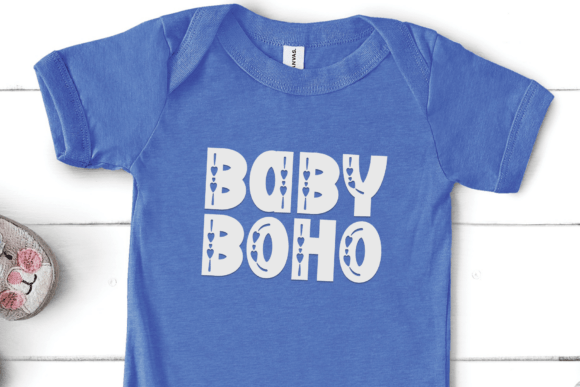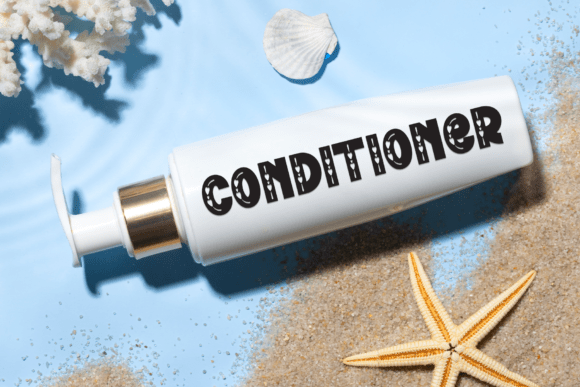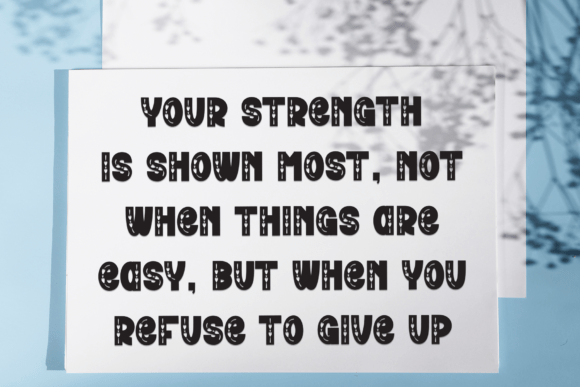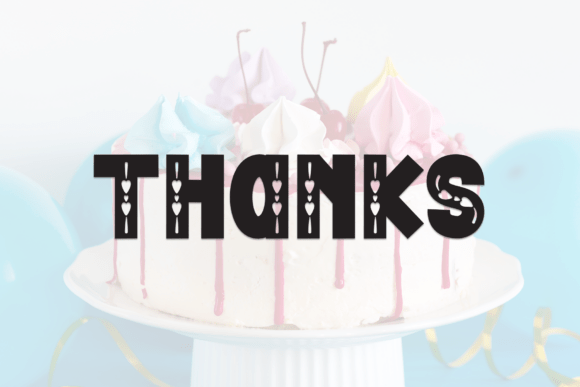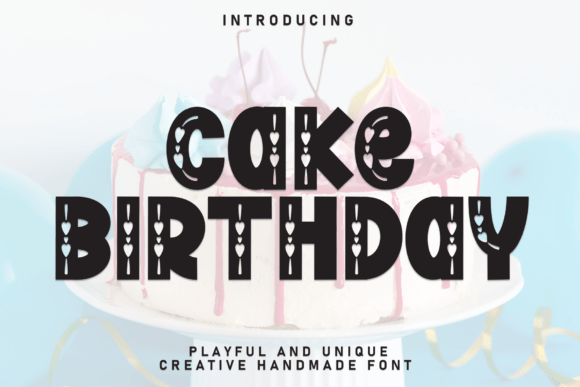
Celebrate in Style with Cake Birthday Font
Are you looking for a font that can add a touch of playfulness and whimsy to your designs? Look no further than Cake Birthday Font, a bold and unique display font that’s perfect for birthday party announcements, children’s designs, product packaging, and more. With its chunky shapes and charming heart cut-outs, this font is sure to command attention and bring a smile to anyone’s face.
The Allure of Cake Birthday Font
The allure of Cake Birthday Font lies in its playful and cheerful spirit. This font is designed to bring a burst of fun and energy to your designs, making it perfect for projects that need a dose of personality. Whether you’re creating wedding invites, crafting heartfelt cards, or designing product packaging, Cake Birthday Font is the ultimate choice for adding a touch of whimsy and delight.
Unique Features of Cake Birthday Font
Cake Birthday Font is a creative handmade font that features bold, chunky shapes with charming heart cut-outs. This unique design makes it stand out from other fonts and gives it a distinctive personality. The font is also PUA coded, which means you can access all the amazing glyphs and ligatures easily. This makes it easy to use and customize, even for designers who are new to working with fonts.
Cake Birthday Font is a versatile font that can be used for a wide range of design projects. Here are just a few ideas to get you started:
- Birthday party announcements: Create eye-catching invitations that set the tone for a fun and festive celebration.
- Children’s designs: Use Cake Birthday Font to create playful and engaging designs for kids, such as coloring books, activity sheets, and more.
- Product packaging: Add a touch of whimsy and personality to your product packaging with Cake Birthday Font.
- Wedding invites: Use Cake Birthday Font to create unique and playful wedding invitations that set the tone for a fun and celebratory wedding.
- Cards and gifts: Add a personal touch to your cards and gifts with Cake Birthday Font.
Why Choose Cake Birthday Font?
So why choose Cake Birthday Font for your design projects? Here are just a few reasons:
- Unique and playful design: Cake Birthday Font features a bold and unique design that’s sure to command attention.
- Easy to use: The font is PUA coded, making it easy to access all the amazing glyphs and ligatures.
- Versatile: Cake Birthday Font can be used for a wide range of design projects, from birthday party announcements to product packaging.
- High-quality design: Cake Birthday Font is a high-quality font that’s designed to bring a touch of whimsy and delight to your designs.
Tips for Using Cake Birthday Font
Here are a few tips for using Cake Birthday Font in your design projects:
- Experiment with different colors: Cake Birthday Font looks great in a variety of colors, so don’t be afraid to experiment and find the perfect hue for your design.
- Pair with other fonts: Cake Birthday Font pairs well with other fonts, so try pairing it with a more traditional font to create a unique and interesting contrast.
- Use it sparingly: While Cake Birthday Font is a fun and playful font, it can be overwhelming if used too much. Use it sparingly to add a touch of whimsy and personality to your designs.
Cake Birthday Font is a unique and playful font that’s perfect for designers and crafters who want to add a touch of whimsy and personality to their designs. With its bold and chunky shapes, charming heart cut-outs, and PUA coding, this font is sure to bring a burst of fun and energy to your design projects. Whether you’re creating birthday party announcements, children’s designs, product packaging, or more, Cake Birthday Font is the ultimate choice for adding a touch of delight and charm.